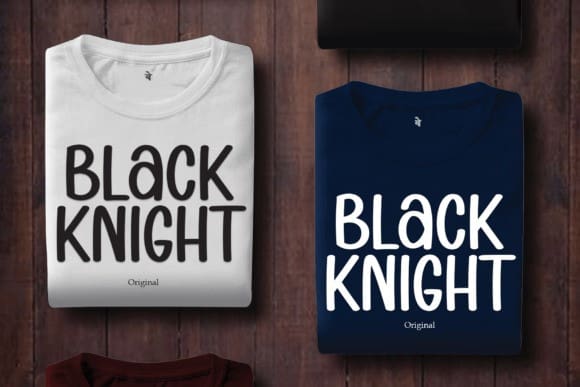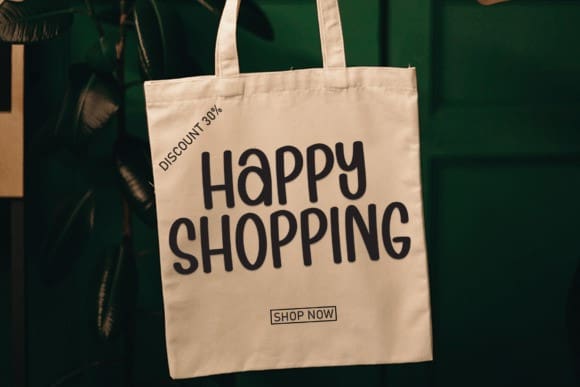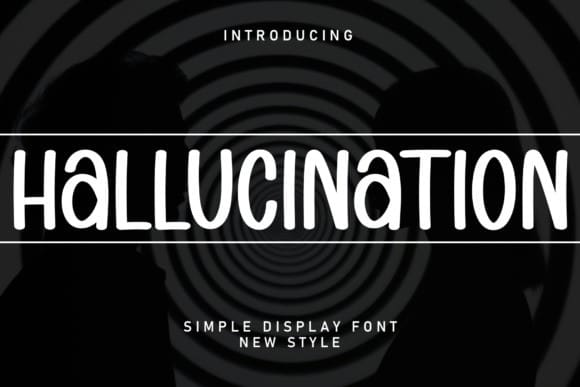
Hallucination Display Font
Hallucination Display Font is a sweet and friendly handwritten font. Cute and fun, this font is ideal for writing wedding invitations, cards, or any other design that might need a lovely touch!